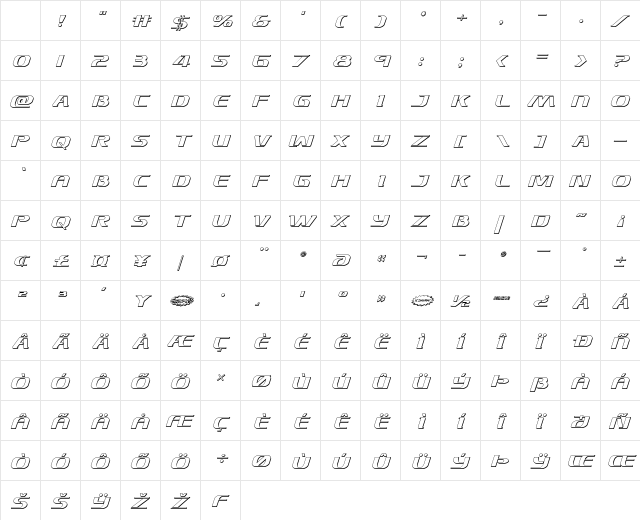
Sky Marshal 3D is a composed and adaptable typeface that performs quietly and consistently across a wide range of design contexts. The slanted form adds forward momentum and visual energy.